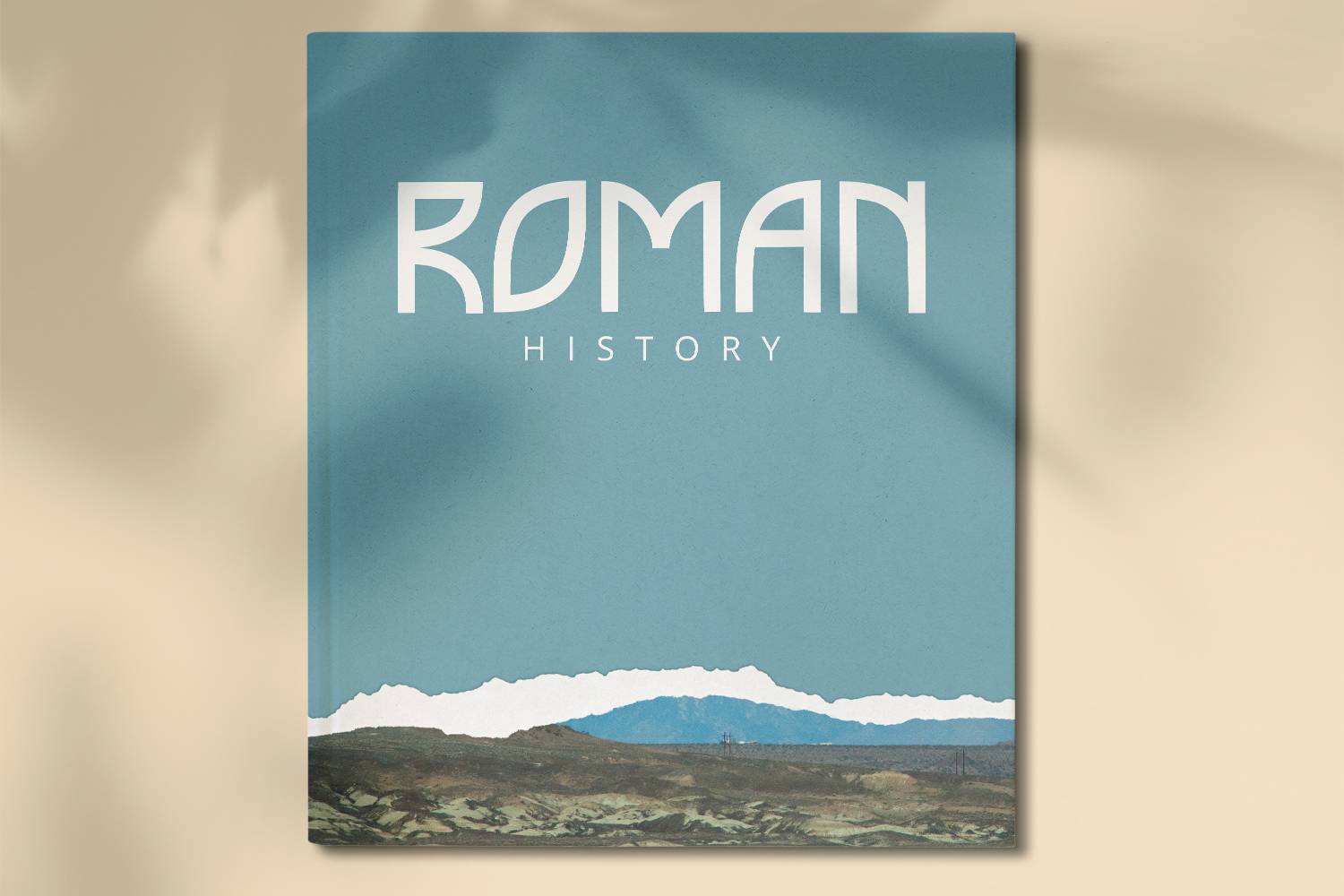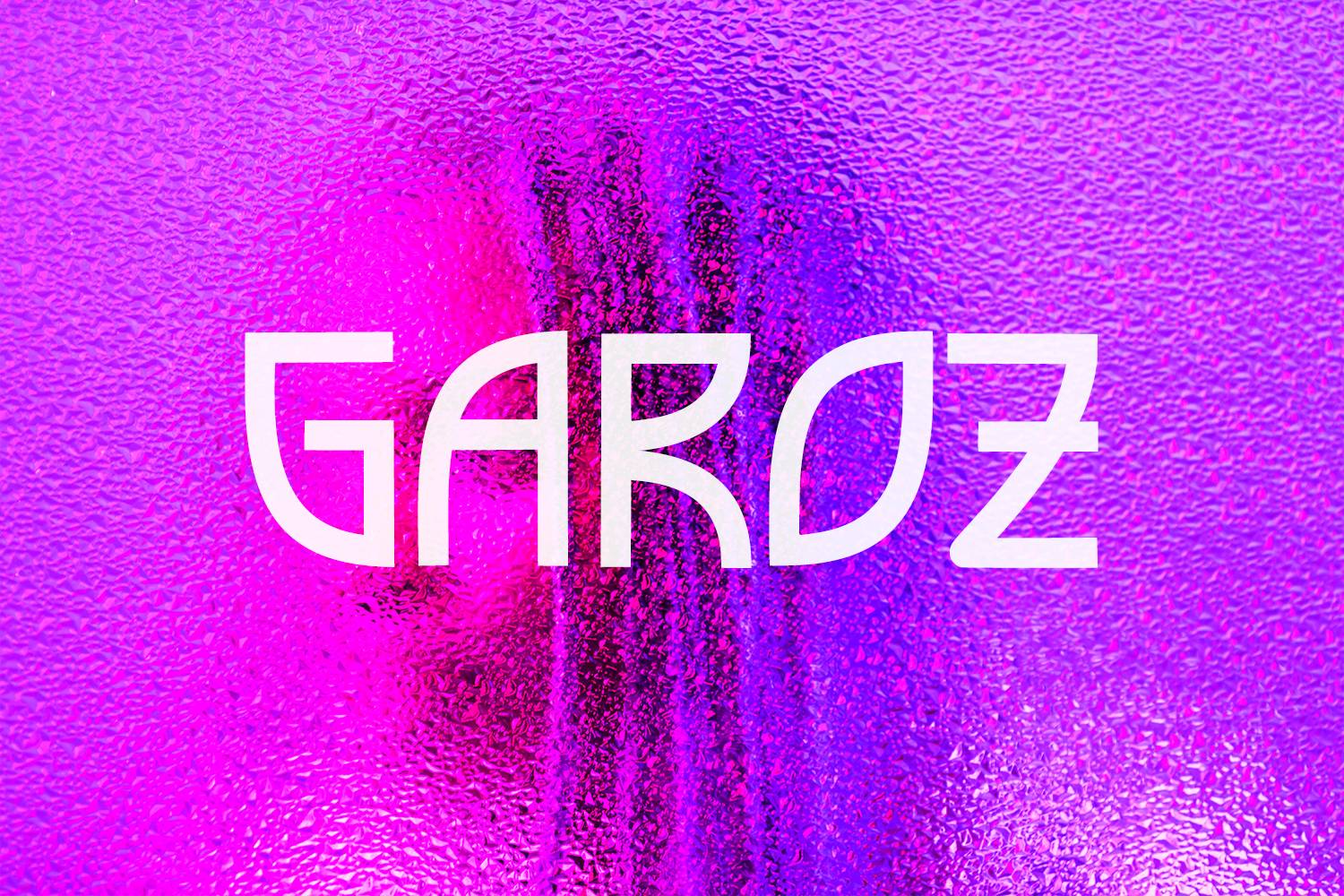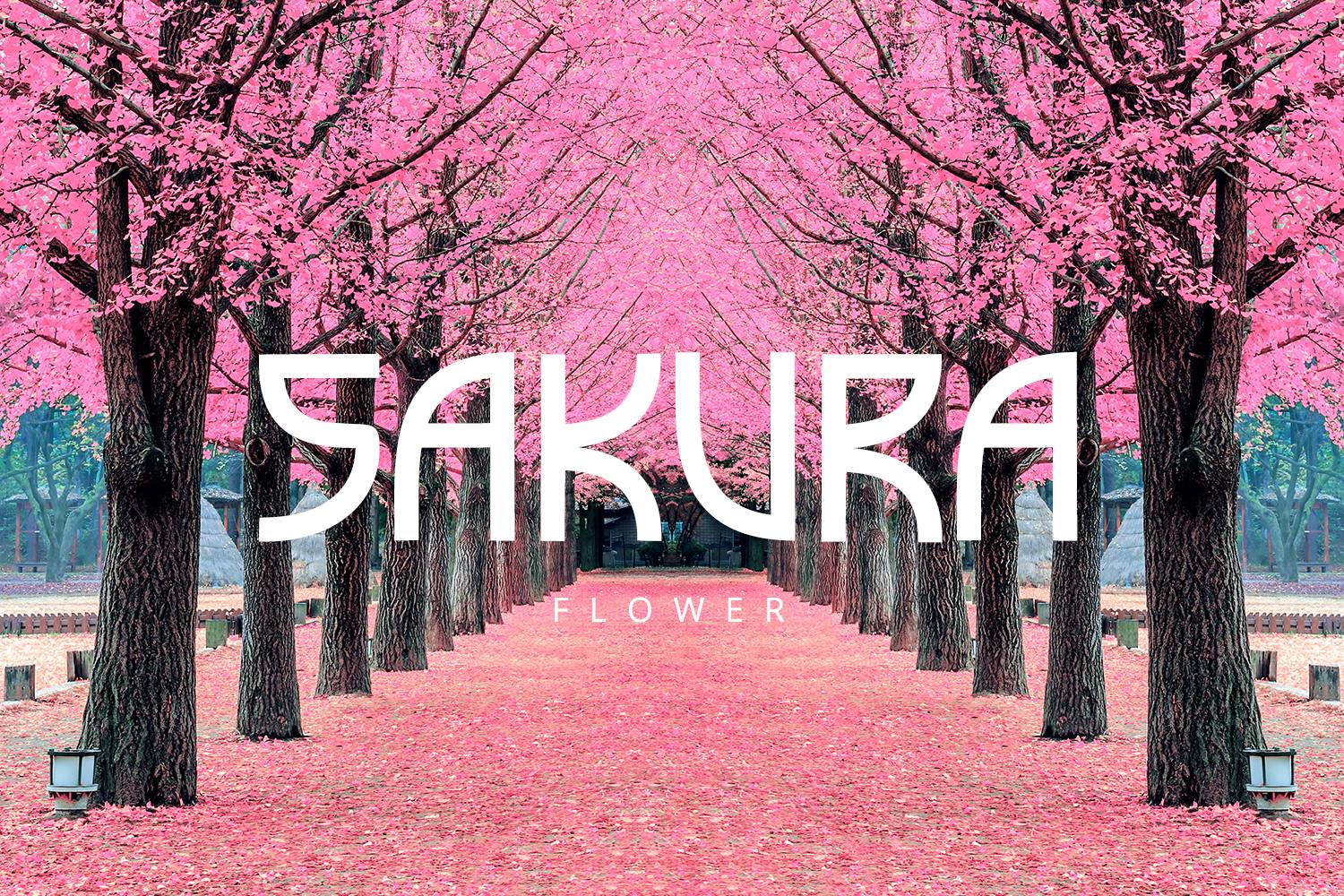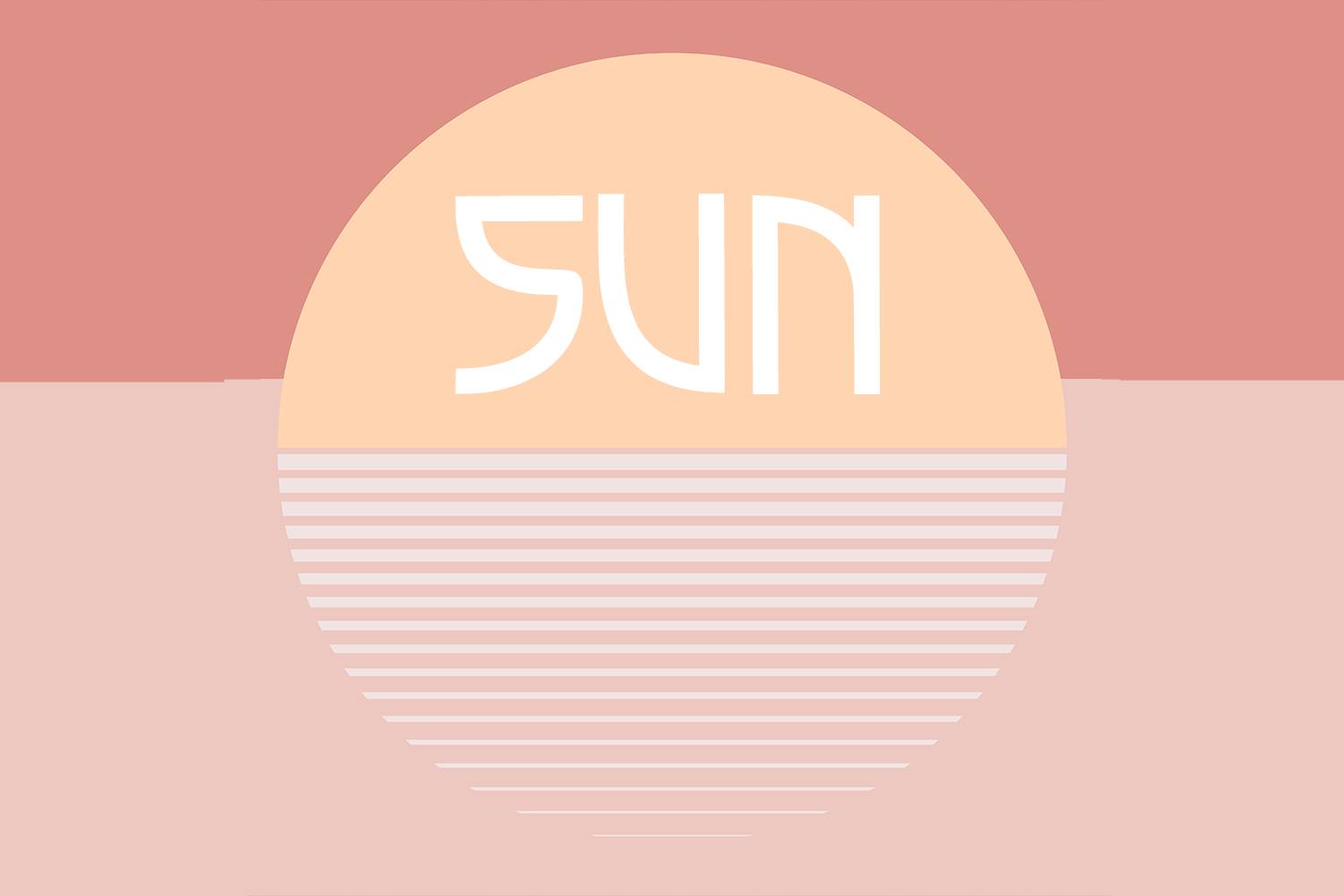
Komon is a unique sans serif font with a modern, geometric style characterized by its slightly condensed letterforms and playful curves. Its consistent stroke weight and distinctive shapes give it a futuristic yet approachable vibe, making it ideal for creative branding, editorial headlines, and digital projects seeking a fresh, contemporary look. The font’s blend of originality and clarity ensures it stands out while remaining legible across various uses.
Komon Font
About Komon Font